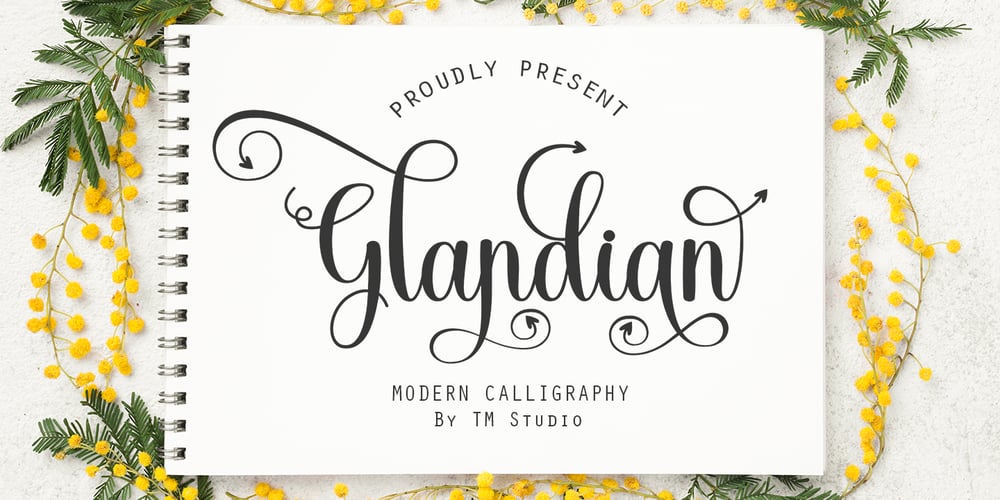
Glandian Font Family was designed by Teuku Bustami and published by TM Type. Glandian contains 1 styles and family package options. Glandian is a romantic and sweet calligraphy typeface with characters that dance along the baseline. It has casual yet elegant features. It is perfect for wedding invitations, logo designs, social media, wedding greetings, etc. This font is PUA encoded, which means you can access all of the glyphs and swashes with ease.